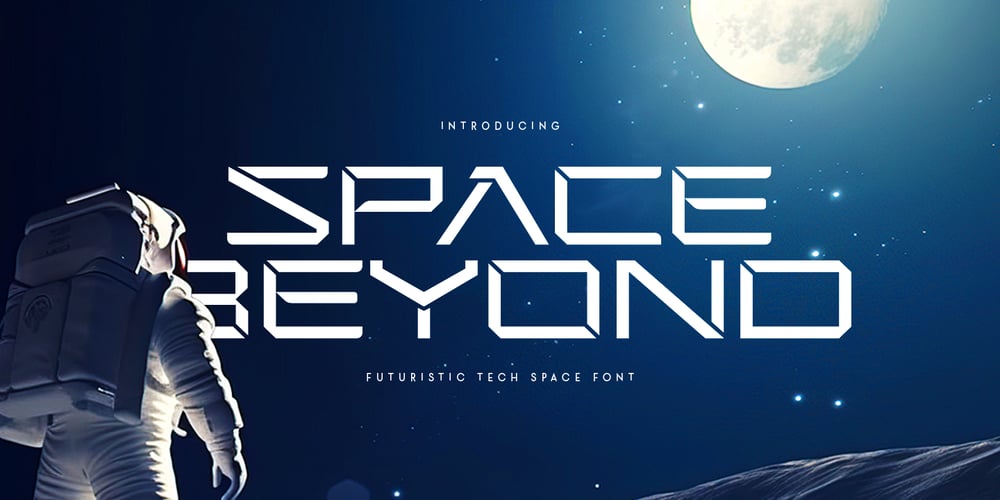
Space Beyond Font Family was designed by Zamroni Hamzah and published by Sensatype Studio. Space Beyond contains 1 styles and family package options. Introducing Space Beyond, a font that transcends the ordinary and takes your designs to new dimensions. Inspired by the vastness of space and the cutting-edge technology that propels us into the future, Space Beyond offers a sleek and modern aesthetic perfect for innovative projects.The Story Behind Space Beyond:Imagine a font that captures the essence of the cosmos and the advanced technology that drives our exploration of it. Space Beyond was created with this vision in mind, merging the boundless inspiration of the universe with the sleek precision of futuristic tech. Each character is meticulously designed to reflect a balance between the boldness of space exploration and the sophistication of modern design.Space Beyond Font Features: Futuristic Design: Sleek and modern, perfect for tech and space-themed projects. Tech-inspired Aesthetics: Clean lines and sharp angles that evoke a high-tech feel. Versatile Usage: Ideal for logos, headlines, posters, and digital artwork. Multiple Formats: Available in 4 formats for all your design needs. High Legibility: Clear and readable, ensuring your message stands out. Inspirational Previews: Includes sample designs to ignite your creativity. Perfect For: Tech Startups: Create logos and branding that stand out in the tech industry. Sci-fi Projects: Design eye-catching titles and graphics for sci-fi movies, games, and books. Space-themed Designs: Develop posters, banners, and digital art that capture the essence of the cosmos. Innovative Branding: Elevate your brand with a font that exudes modernity and forward-thinking. With Space Beyond, your designs will transcend the ordinary and venture into the extraordinary. Whether you’re working on cutting-edge tech projects or space-inspired artwork, Space Beyond provides the perfect balance of style and sophistication. Explore the future with Space Beyond and let your creativity soar.